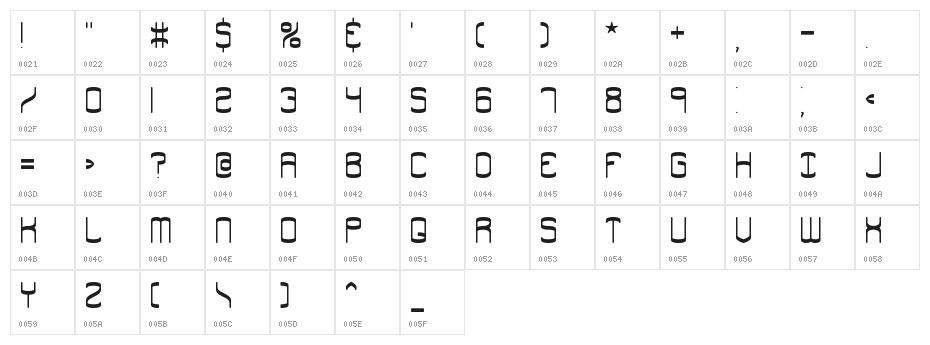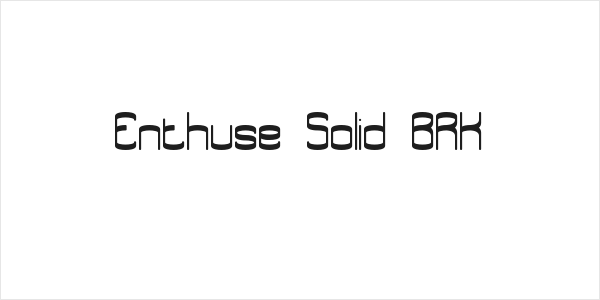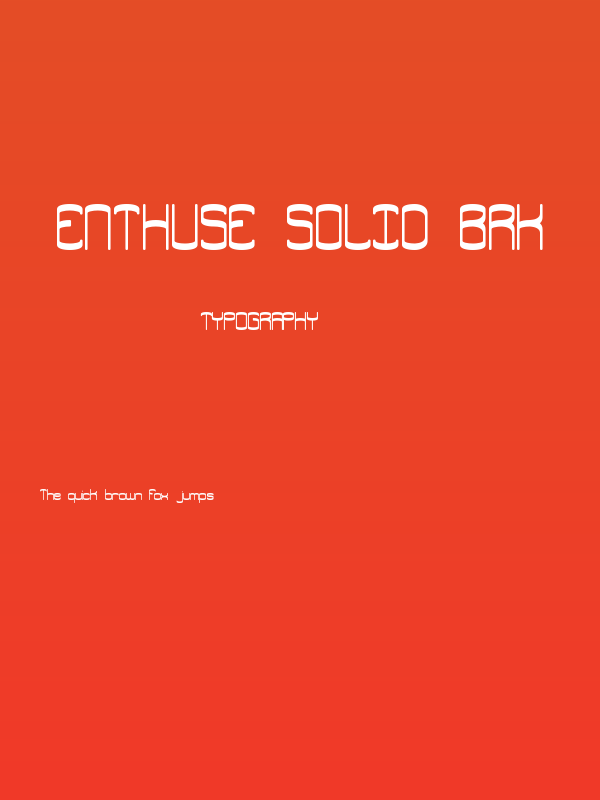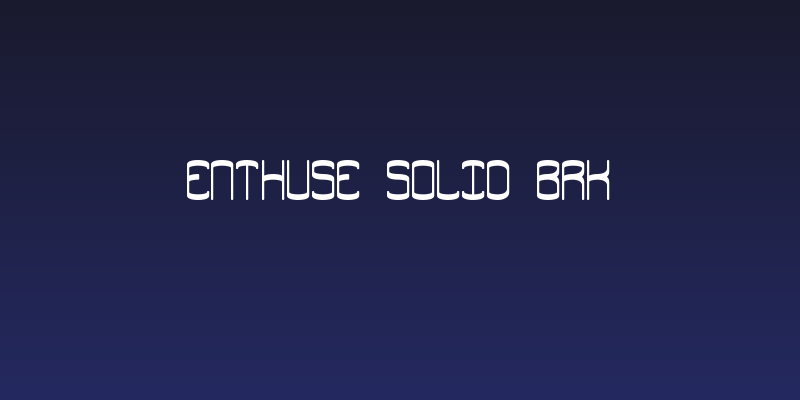
Enthuse Solid BRK Font
Enthuse Solid BRK Description
This font features a modern, geometric design with rounded edges and a clean, streamlined appearance. The characters are uniform in height, with a consistent stroke width that gives a cohesive look. The uppercase letters are bold and prominent, while the lowercase letters maintain a similar style with slightly reduced height. Numbers and special characters follow the same design principles, ensuring a harmonious overall appearance. The font's simplicity and clarity make it suitable for a variety of applications, providing a contemporary and professional feel.
Use CaseHeadlines, Logos, Digital interfaces
Proposed ProjectsIdeal for branding, digital interfaces, signage, and modern advertising campaigns.